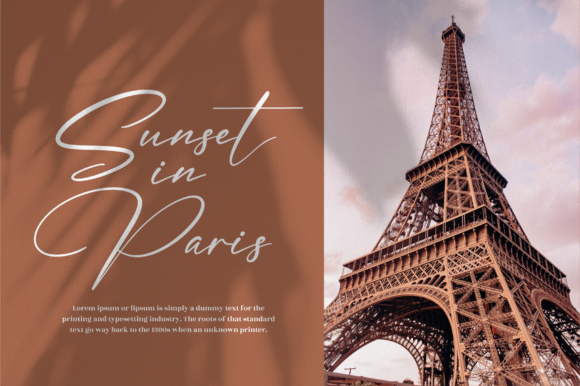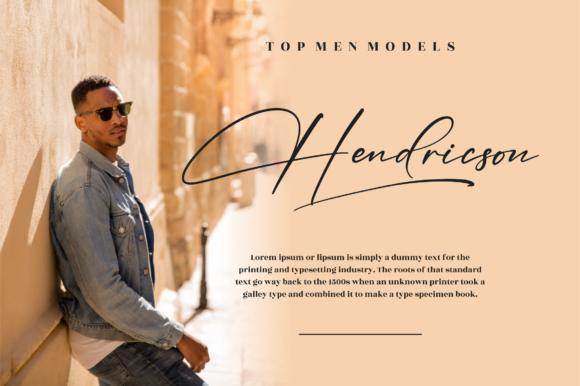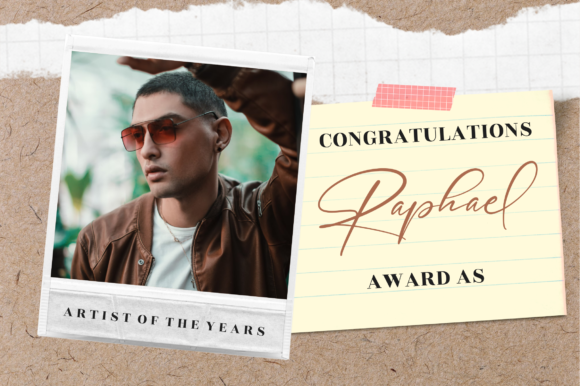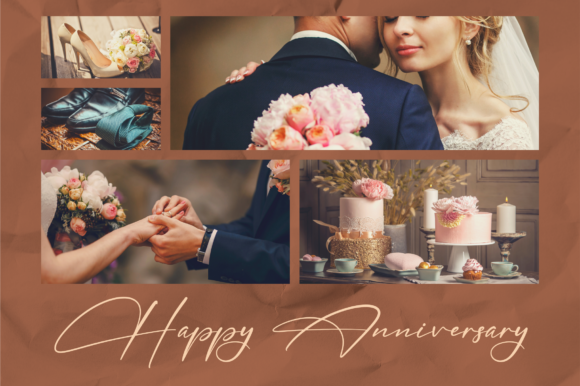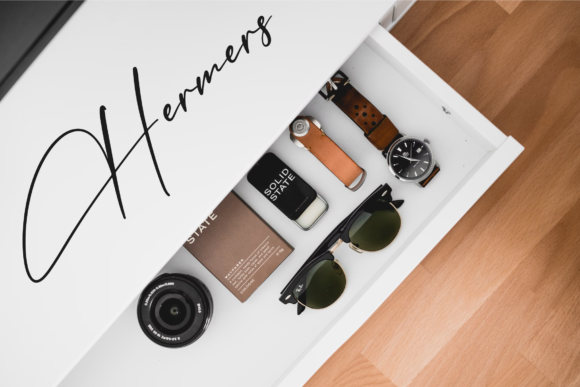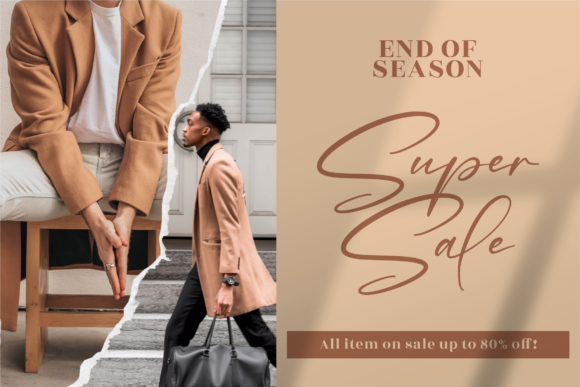
Introduction to Handsmith Font
There’s nothing quite like the feeling of starting a new creative project, with a blank page staring back at you, full of possibilities. You’re envisioning the perfect typography, the perfect design – and that’s where the Handsmith Font comes in. This gorgeous handwritten font is about to become your new best friend, and we can’t wait to tell you why.
With its sweet, cursive lines and effortless elegance, the Handsmith Font is the perfect design resource for any project that needs a touch of whimsy. Whether you’re working on a logo, a social media graphic, or a beautiful wedding invitation, this high-quality font is sure to elevate your design to the next level. And the best part? It’s PUA encoded, making it a breeze to access all the glyphs and swashes you need to create a truly unique look.
So why settle for a generic font when you can have the Handsmith Font, perfect for designers who crave a little extra something special? This beautiful font is available for free download, making it a valuable addition to any designer’s toolkit. With a transparent background and a range of stylish variations, the Handsmith Font is the perfect choice for any creative project that demands a high level of quality and sophistication.
Key Features of Handsmith Font
- Unique, handcrafted design with a touch of imperfection, ideal for creative projects requiring a high-quality, distinctive look.
- Perfect for designers seeking a distinctive, high-quality font for their creative projects, from posters to digital designs.
Honest Review: Handsmith Font
As a designer, I’m always on the lookout for unique and high-quality design resources. Recently, I had the chance to work with the Handsmith Font, and I’m excited to share my honest review.
What works well: ✨ The Handsmith Font is incredibly versatile and comes in a variety of weights, making it perfect for a range of creative projects. The font’s intricate details and elegant feel make it a great choice for high-end designs, while its simpler forms also make it suitable for more casual projects.
What works well: ✨ Another great feature of the Handsmith Font is its transparent background, which allows for seamless integration with other design elements.
- ⚠️ Limited language support: The Handsmith Font is currently only available in a single language, which may limit its use for global design projects.
- ⚠️ Limited customization options: While the font comes in a range of weights, there are limited options for further customization.
Overall, I’m really impressed with the Handsmith Font. Its high quality, versatility, and free availability make it a valuable addition to any designer’s toolkit. While it may have some limitations, I believe it’s a great resource for anyone working on creative projects that require a unique and elegant touch.